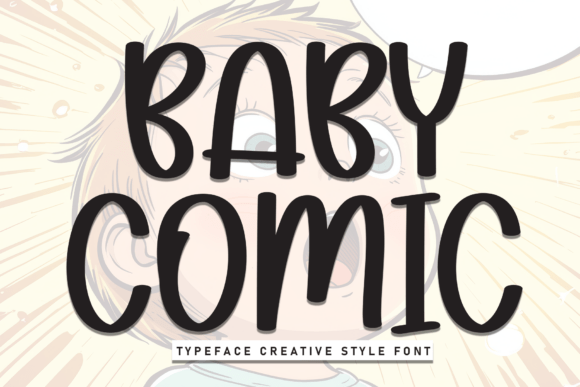
Unleashing the Power of Baby Comic Font
As designers, we’ve all been there – staring at a blank canvas, searching for the perfect font to bring our creative vision to life. It’s a moment of pure inspiration, where the right typography can make all the difference between a design that’s merely good and one that’s truly exceptional. For me, that moment came when I stumbled upon the Baby Comic Font – a casual and neat display font designed to bring warmth and clarity to any project.
The Baby Comic Font is perfect for designers looking to add a touch of approachability and charm to their work. Its clean structure and balanced letterforms offer unparalleled readability, making it an ideal choice for branding, headlines, and everyday designs. With the Baby Comic Font, every message feels genuine and inviting, making it a valuable addition to any designer’s toolkit.
- Unique Characteristics: This font features a playful, childlike design with rounded edges and a cursive feel, making it ideal for children’s books, educational materials, and other projects requiring a friendly tone.
Baby Comic Font Review
I recently had the chance to work with the Baby Comic Font, and I must say it’s a delightful addition to any project. ✨ Here’s what I liked about it:
- Its playful and whimsical nature makes it perfect for children’s books, comics, or any project that requires a lighthearted tone.
- The font is highly customizable, allowing you to adjust the color, size, and style to fit your project’s needs.
- The Baby Comic Font is well-suited for digital projects, as it looks great on both screens and printed materials.
However, I did encounter some limitations: ⚠️
- The font may not be as effective for formal or professional projects, as its playful nature can come across as unprofessional.
- The font may require additional styling to ensure it’s legible in certain situations, such as when used in small sizes or with complex layouts.
Overall, I was impressed with the Baby Comic Font’s versatility and charm. It’s a great choice for projects that require a playful and engaging tone, but may not be the best fit for more formal or professional applications.
The Baby Comic Font is a playful and whimsical font that is perfect for:
- Comic strips
- Cartoon-style graphics
- Party invitations
Remember to use the font in moderation and in conjunction with other design elements to create a cohesive look.
Alternatives to Baby Comic Font